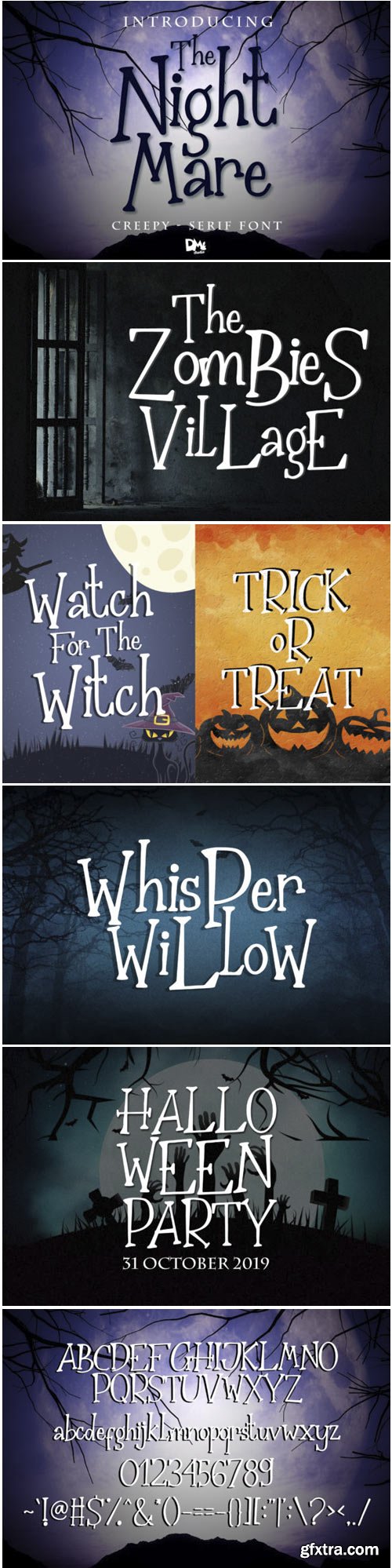
The Nightmare Font
The Nightmare celebrates all things horror. This creepy and weird typeface is perfect for any Halloween-, zombie- or witch-themed craft idea!